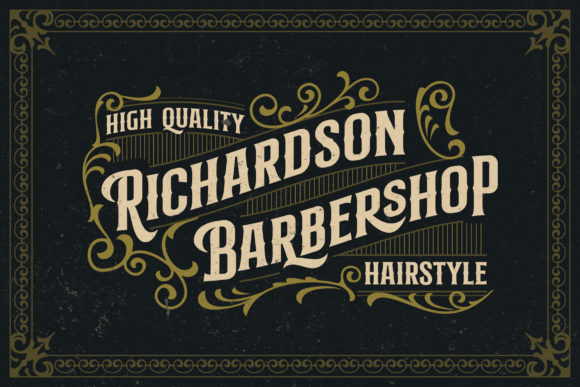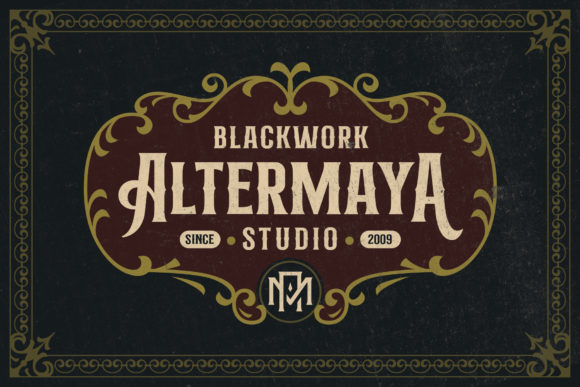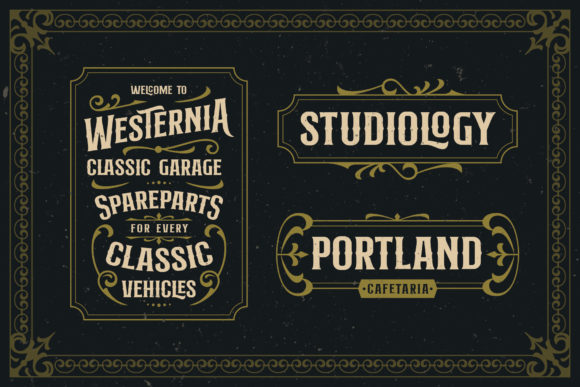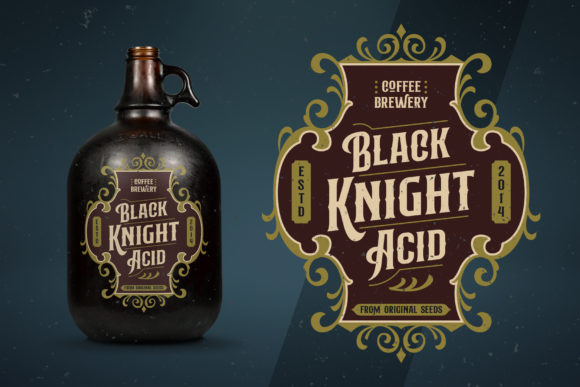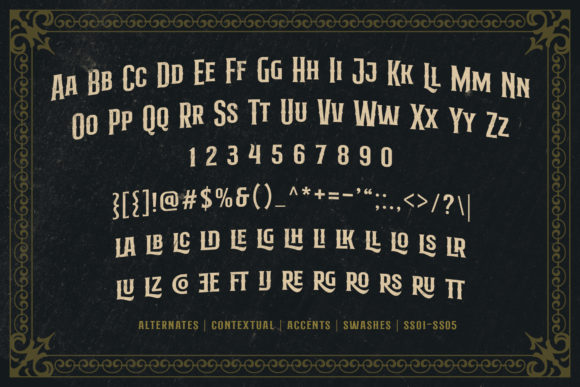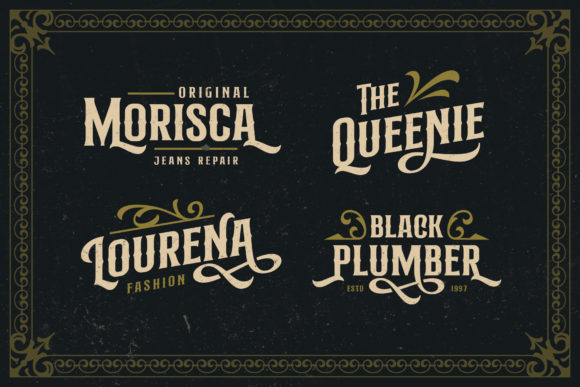
The Hermona Font: A Vintage Gem for Your Design Projects
I still remember the design project that led me to discover the Hermona font. I was working on a retro-themed branding campaign for a client, and I was struggling to find the perfect font that captured the essence of a bygone era. That’s when I stumbled upon Hermona, and it instantly became my go-to font for the project. The combination of class and a nostalgic, retro feel made it a true standout, and I knew I had to share it with fellow designers and creative enthusiasts.
An Honest Review of Hermona Font
What I Love About Hermona ✨
• Unique vintage aesthetic that’s perfect for retro-themed designs ✅
• Excellent for headlines, titles, and labels due to its bold and eye-catching style 📣
• Supports OpenType features, allowing for creative experimentation with glyphs and stylistic alternates 🎨
• Works beautifully for both digital and print designs, making it versatile for various projects 📊
• May not be the best choice for body text due to its bold and condensed style ⚠️
• Limited character set compared to other fonts, which might limit its use for certain projects 📝
The Backstory of Hermona Font
Hermona was inspired by old-school caps and labels from the mid-20th century. The font’s designer aimed to capture the essence of a bygone era, with a focus on bold, eye-catching typography that’s both nostalgic and timeless. The result is a unique font that’s perfect for designers, crafters, and creative hobbyists looking to add a touch of vintage charm to their projects.
What is Hermona font best used for? Hermona font is best used for headlines, titles, and labels, particularly in retro-themed designs, branding projects, and creative endeavors.
Can I use Hermona in digital and print designs? Yes, Hermona font works beautifully for both digital and print designs, making it a versatile choice for various projects.